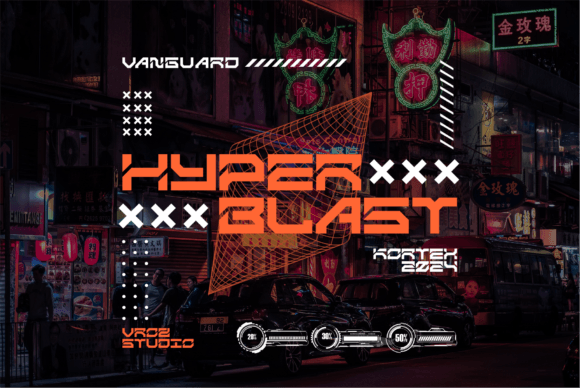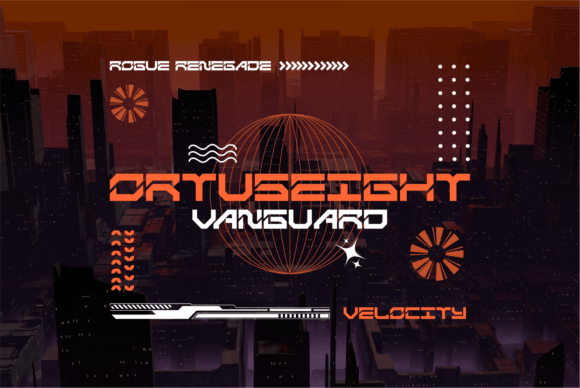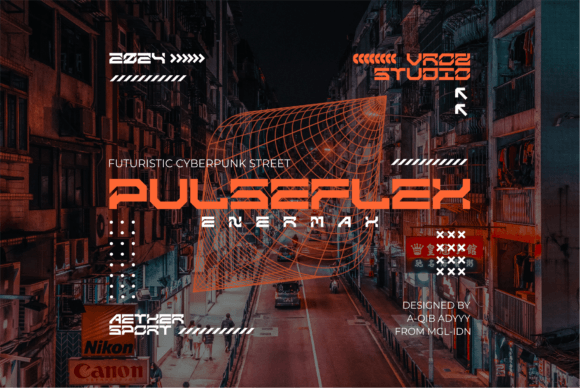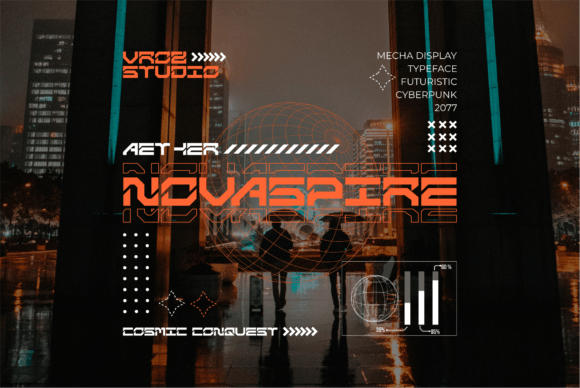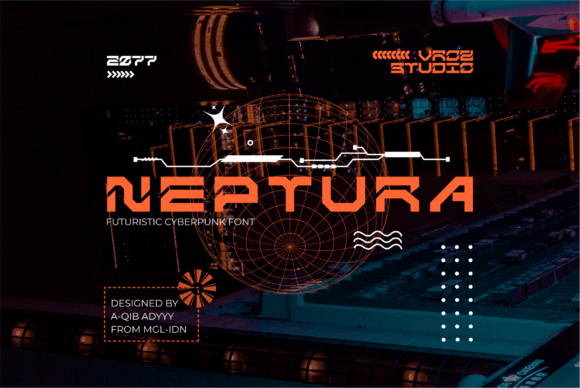
Discover the Futuristic Power of Arkcon Font
I’ll never forget the time I was working on a cyberpunk-themed project, and I just couldn’t find the right font to bring my vision to life. My client wanted something that screamed “futuristic” and “edgy,” but everything I tried seemed to fall flat. That was until I stumbled upon the Arkcon font. ✨
ARKCON is a futuristic cyberpunk display font that has become a staple in my design toolkit. Its sleek lines, sharp edges, and bold presence make it perfect for headlines, billboards, magazines, websites, titles, posters, branding, thumbnails, t-shirt designs, streetwear designs, creative logos, or any project in need of a futuristic touch.
An Honest Review of Arkcon Font
- ✨ Versatility: Arkcon font can be used for a wide range of projects, from digital displays to print materials.
- ✅ Ease of use: The font is easy to read, even in smaller sizes, making it perfect for titles and headings.
- 💥 Impactful: The bold and futuristic design of Arkcon font makes it perfect for grabbing attention and making a statement.
- 🎨 Customizable: With OpenType features and glyphs, you can experiment with different styles and variations to make the font your own.
While Arkcon font is an amazing tool, there are a few things to keep in mind: 🤔
- ⚠️ Limited use in body text: Due to its bold and futuristic design, Arkcon font may not be the best choice for body text or long paragraphs.
- ⚠️ Requires careful kerning: As with any font, some manual kerning may be necessary to ensure optimal spacing and readability.
The Backstory of Arkcon Font
The Arkcon font was designed with the cyberpunk aesthetic in mind. The designer, inspired by the neon-lit cityscapes and futuristic landscapes of sci-fi movies, set out to create a font that would evoke a sense of power and futurism. 💻
The result is a font that is both bold and elegant, perfect for making a statement in any design project.
| Font Name | Arkcon Font |
| Author | Vroz Studio |
Q: What is the best use for Arkcon font?
A: Arkcon font is best used for headlines, titles, and short paragraphs where a bold and futuristic look is desired.